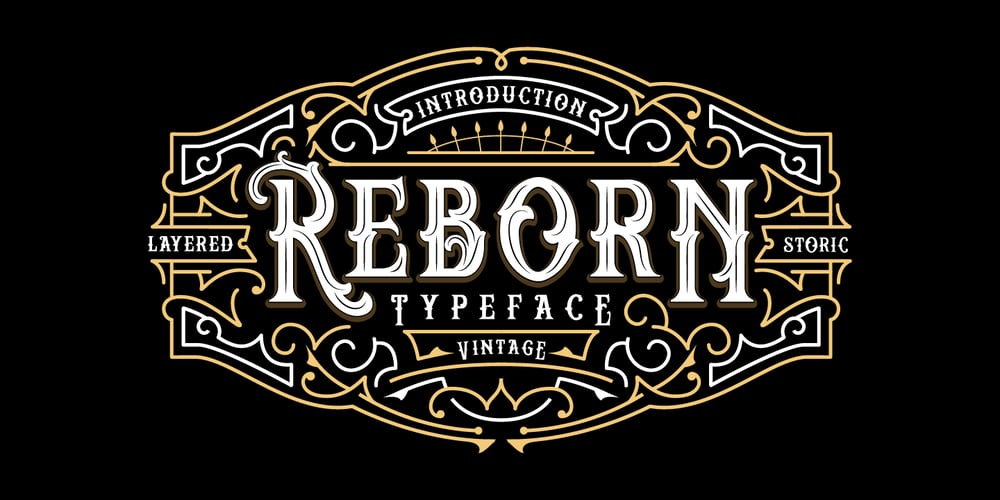
Reborn Typeface Font Family was designed by panji nugroho and published by Storictype. Reborn Typeface contains 4 styles and family package options. Introducing vintage classic display typeface its called Reborn Typeface. Reborn Typeface is a multi-layered type family with awesome ornament.Inspired by antique, mix victorian and art deco period with decorative shapes*. and last the beautiful set of ornament pack match pairs of letters to fit in your designs.Those all will make you work easily to create : Posters, Logos, Print, Quotes, Headers, Clothing, Labels, Packaging etc.Features : Layered font system Character Set A-Z Numerals & Punctuations (OpenType Standard) Accents (Multilingual characters) Above the description of this font, I hope you’re satisfied with what I have created. if there’s anyone who purchase and find some problem, don`t hesitate to using product support or email me storictype@gmail.comThanks and enjoy designing.